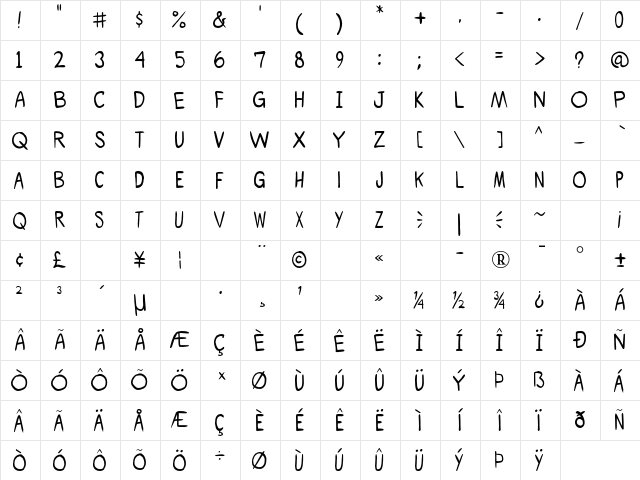
Shoujo Pop! Regular
Design Context for Shoujo Pop! Typeface
Shoujo Pop! is a composed and adaptable typeface that performs quietly and consistently across a wide range of design contexts.